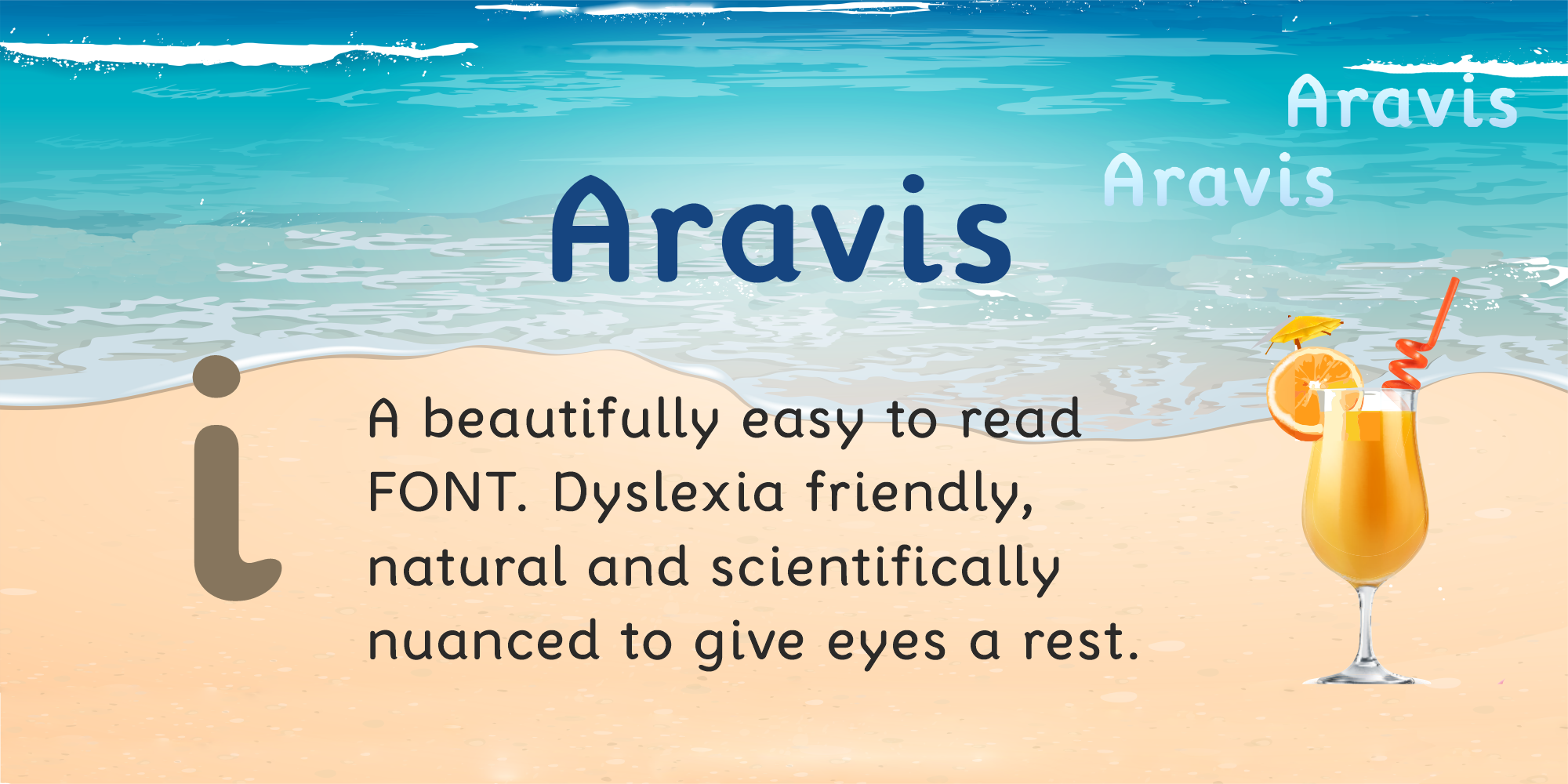
Aravis Font Free Download is a dyslexia-friendly sans-serif typeface perfect for designers seeking clarity and accessibility in their projects.
This font is ideal for applications like educational materials, website typography, worksheets, signage, and inclusive branding.
What makes Aravis Font so exciting is its scientifically designed structure to reduce visual stress and pattern glare, ensuring easy readability for all, especially those with dyslexia.
The Aravis Font family girencludes styles such as Light, Regular, Bold, Black, Italic, and Bold Italic, offering versatility for various design needs.
With Aravis Font Free Download, you’re accessing a typeface crafted by Anne Hext and published by AravisFonts.com, designed to enhance readability for diverse audiences. Featuring over 1500 characters, including math symbols, small capitals, and wingdings (ticks, smiley faces), Aravis Font supports 72 Latinate languages, making it ideal for multilingual projects. Its unique letter shapes prevent confusion from flipping or reversing, and its carefully spaced design minimizes visual stress, as validated by professionals. Perfect for school worksheets, websites, or publications, it ensures inclusivity and comfort.
Aravis Font is celebrated for its ability to combine accessibility with aesthetic appeal, making it a top choice for educational and professional settings. Its mid-sized design allows seamless integration with common fonts, ideal for creating dyslexia-friendly materials. By incorporating Aravis Font Free Download into your work, you elevate your designs with a typeface that’s both inclusive and visually appealing. Download it today to test its potential and see how it transforms your projects.
With Aravis Font Free Download, you unlock a typeface that’s perfect for creating clear and inclusive designs. Its extensive character set and dyslexia-friendly features make it ideal for education, branding, and more. Don’t miss the chance to experiment with this innovative font and bring enhanced readability to your creative endeavors.